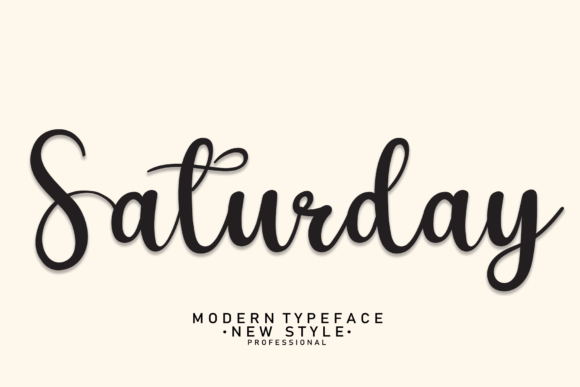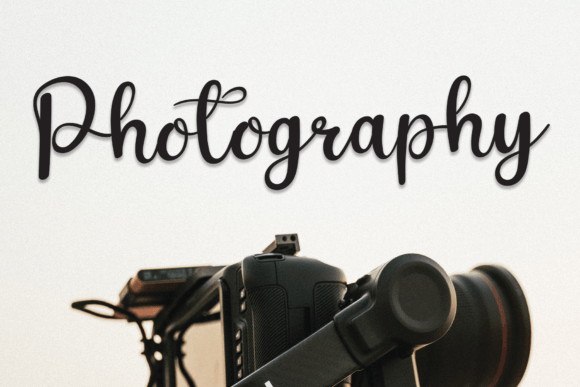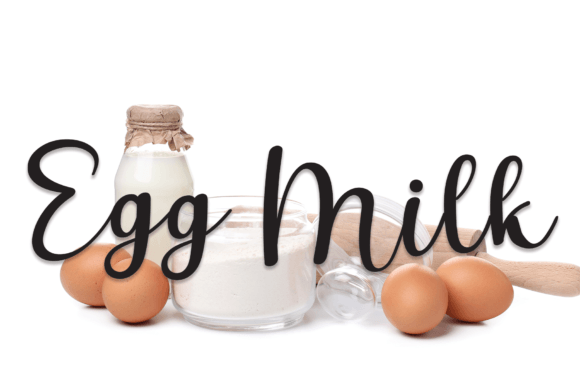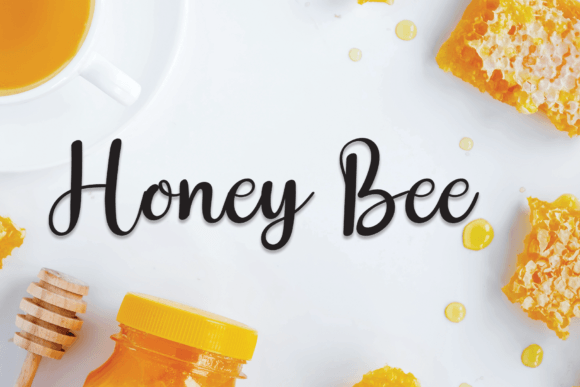
Saturday Font
The Saturday Font Download is a fun and friendly handwritten script that adds warmth and creativity to your projects. With its casual flow and approachable style, this typeface is ideal for crafts, invitations, posters, branding, and digital designs. Its natural handwritten charm makes it a favorite for designers who want a playful yet professional look.
A Fun Handwritten Script with Casual Charm
Unlike standard fonts, the Saturday script font blends modern handwritten strokes with smooth curves, creating a cheerful and approachable style. As a result, it works beautifully in both personal and commercial projects that need character and readability.
Personal stationery always feels more meaningful with handwritten fonts. The Saturday Font is perfect for wedding invitations, greeting cards, thank you notes, and seasonal messages. Moreover, its fun flow ensures that every card looks heartfelt and inviting.
Branding and Logo Design with Saturday Font
Typography is a crucial part of brand identity, and the Saturday handwritten font is an excellent choice for boutique logos, product packaging, and promotional campaigns. In addition, its friendly handwritten form communicates creativity and professionalism at the same time.
Posters, Titles, and Creative Displays
The Saturday Font Download adapts well to posters, book covers, banners, and magazine layouts. Therefore, it maintains clarity across small and large-scale designs while adding a playful handwritten touch.
In the digital space, fonts need to be versatile and eye-catching. The Saturday typeface integrates seamlessly into Instagram graphics, Pinterest posts, YouTube thumbnails, and blog headers. Its casual handwritten charm ensures that digital projects feel polished and engaging.
Why Designers Choose Saturday Typeface
Designers appreciate fonts that balance style with functionality. Many handwritten fonts look unique but lose readability, while the Saturday handwritten script keeps its charm while staying legible in any size. This balance makes it a reliable option for professionals and hobbyists alike.
Add Playful Elegance to Your Projects Today
If you want a handwritten script that feels fun, friendly, and versatile, the Saturday Font Download is the perfect choice. From invitations and greeting cards to posters and digital designs, it enhances every project with joyful handwritten elegance. Finally, download Saturday today and let your creative work shine with warmth and style.